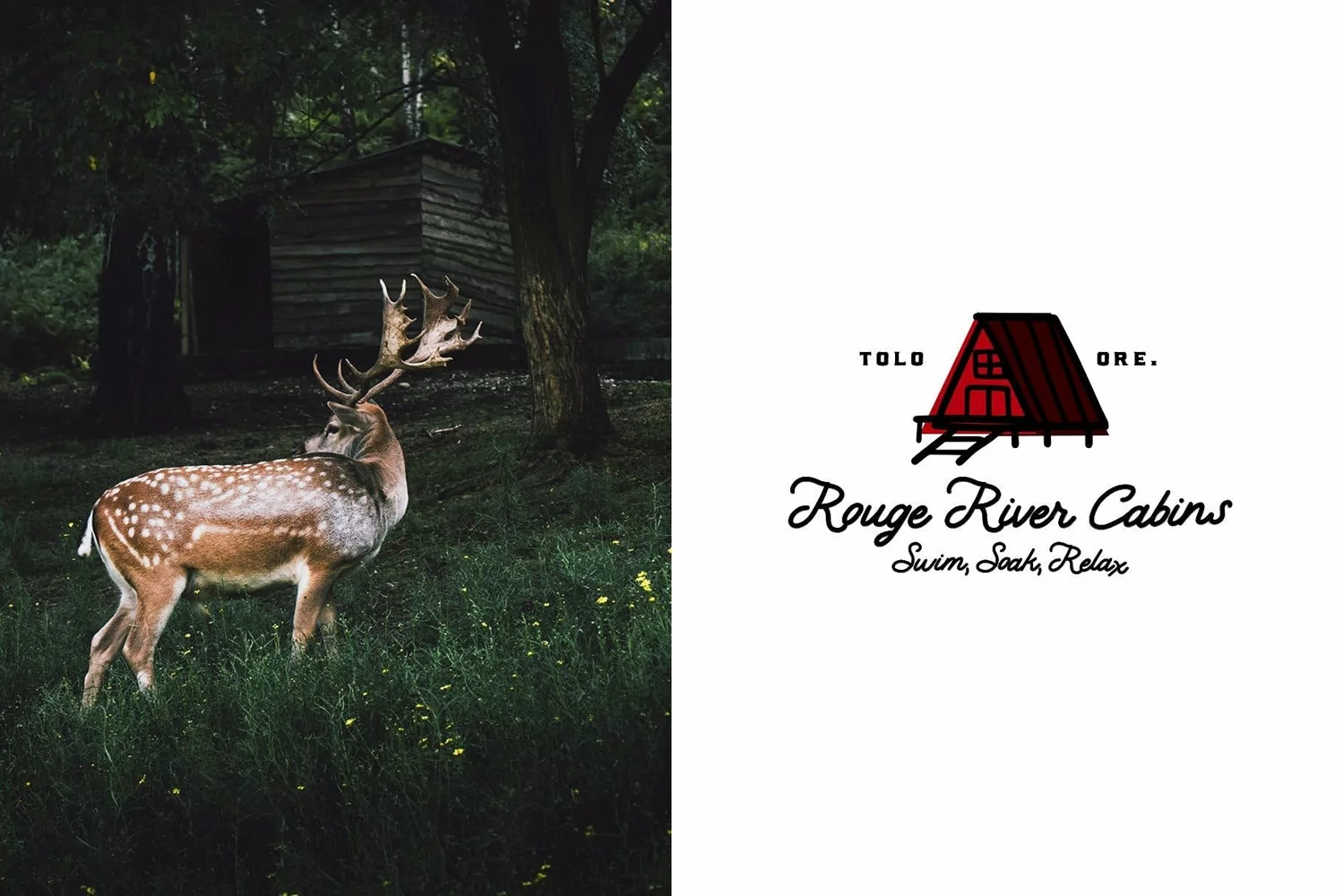
Lodge: A hand drawn monoline font, based on the signage of the National Forests and evoking the rustic comfort of a cozy, firelit lodge.This script font pairs amazingly with another Think Make Design font, Board and Batton.